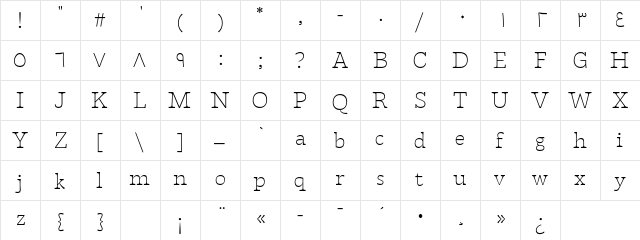
Tarif Arabic Extralight
| Foundry | Zetafonts |
| Designer | Andrea Tartarelli, Cosimo Lorenzo Pancini, Francesco Canovaro |
Design Context for Tarif Arabic Typeface
Tarif Arabic offers clean, dependable letterforms without strong stylistic allegiance, making it a practical choice for designers who need flexibility. The delicate stroke weight brings airiness and refinement to layouts.